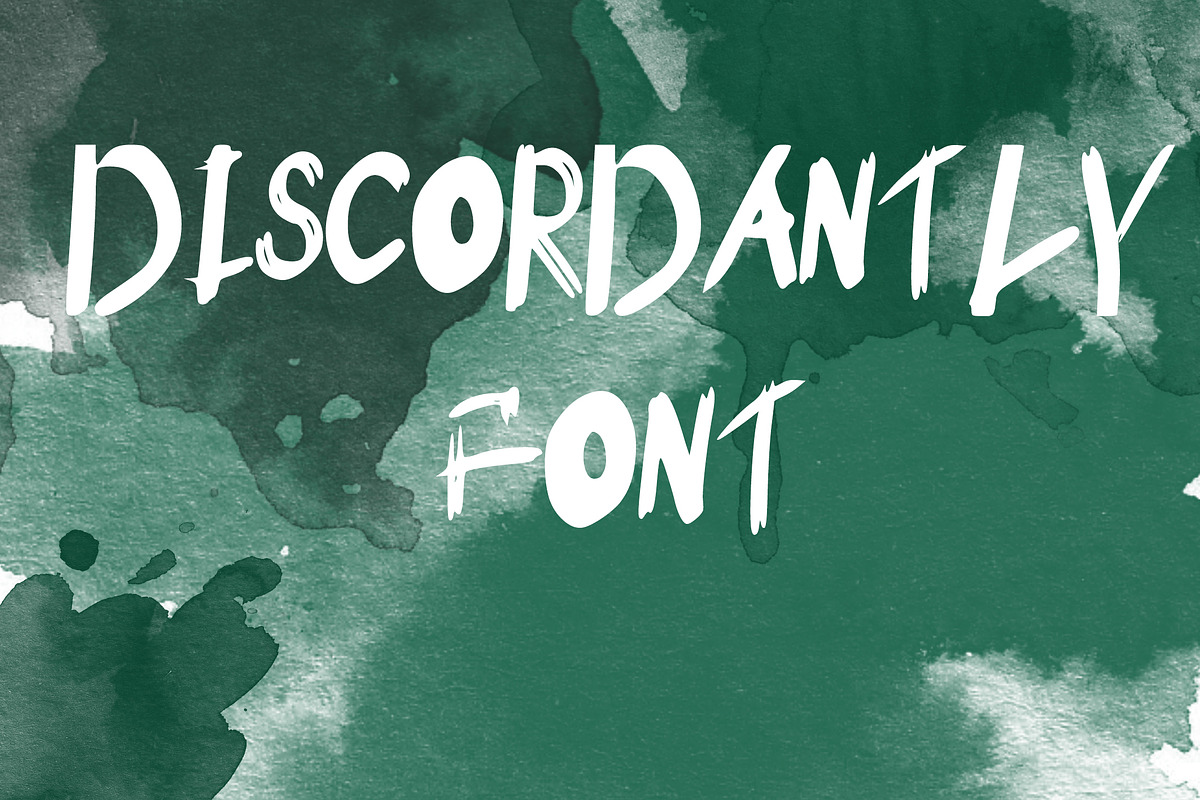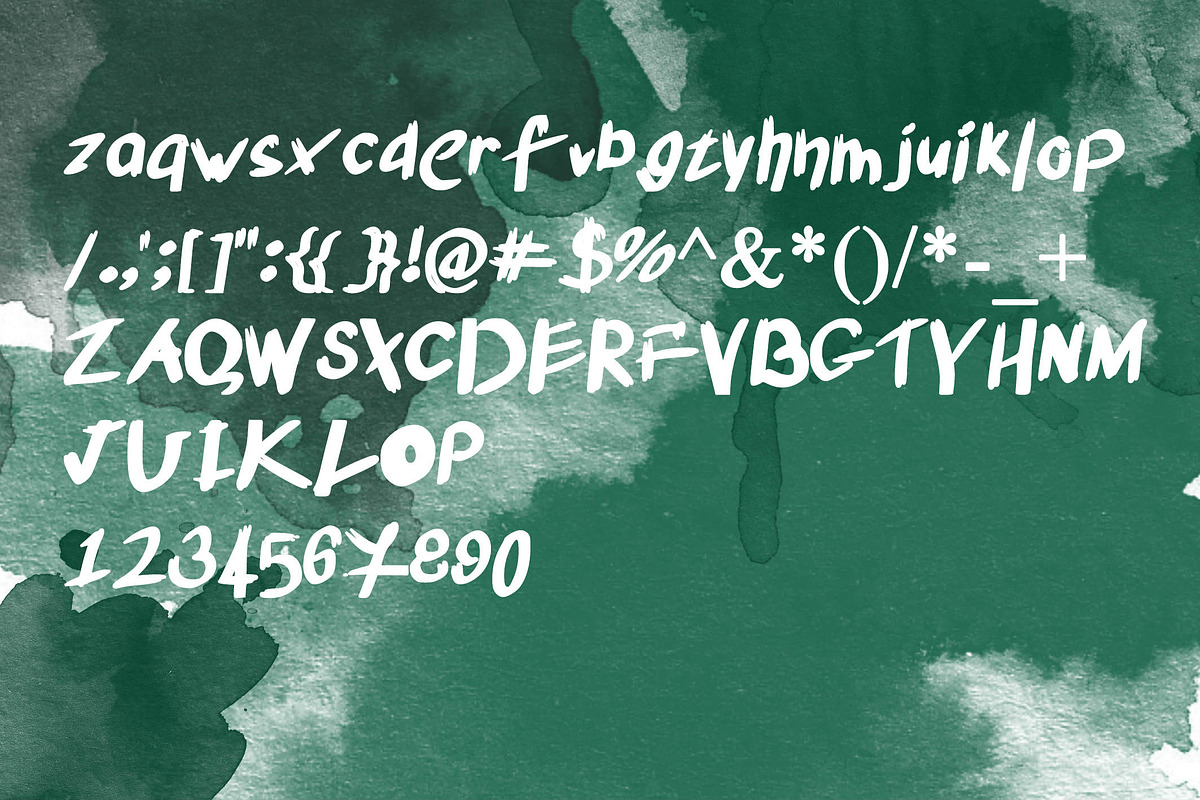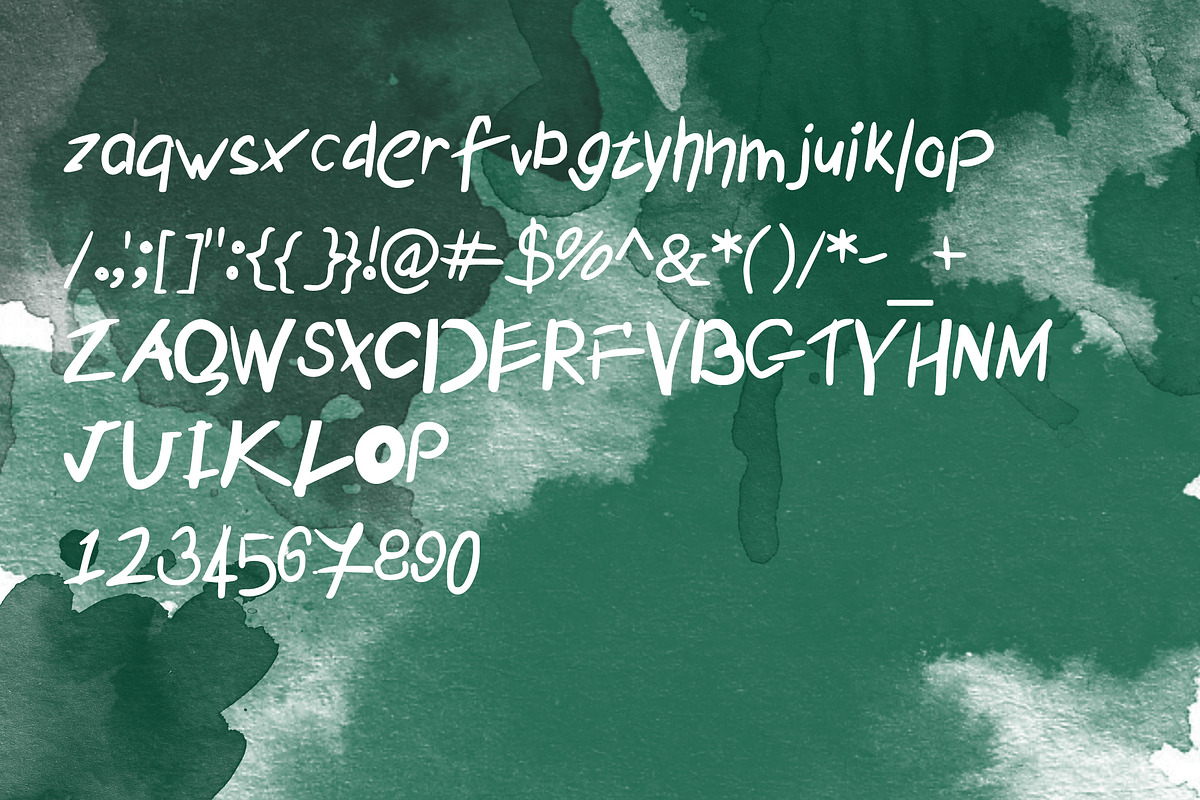
Discordantly font
Discordantly font by NikTo is a font selected for branding, posters, packaging, typography.
Why Discordantly font is worth a look
Discordantly font by NikTo fits naturally into Branding, posters, packaging, typography.